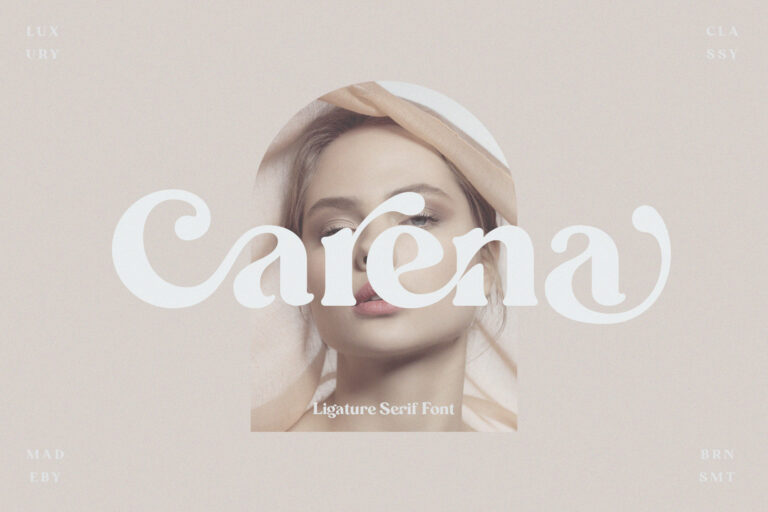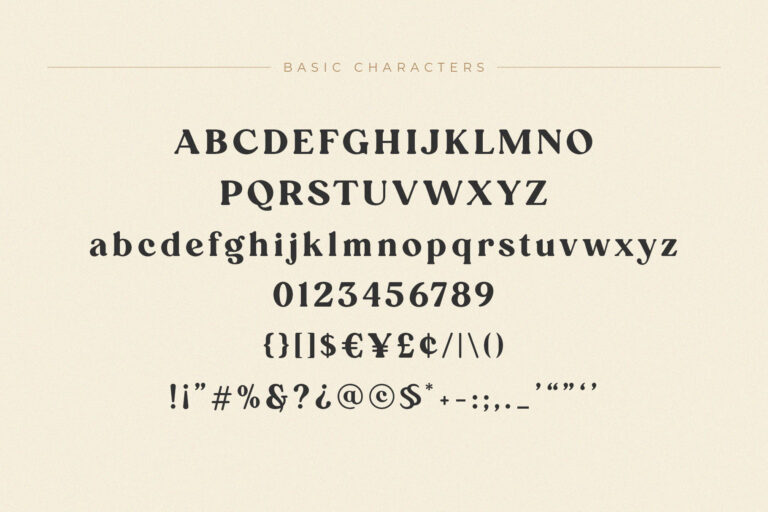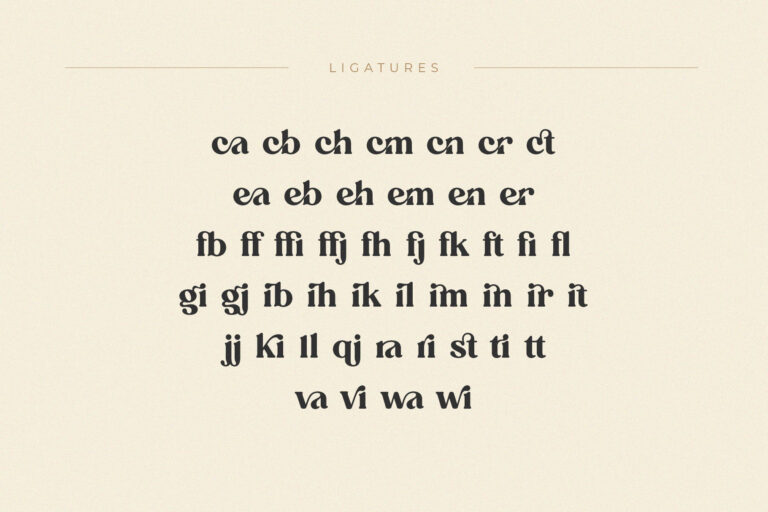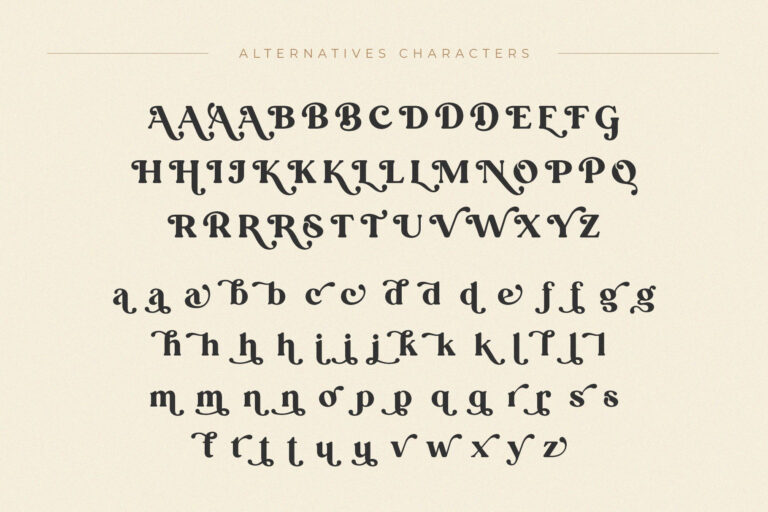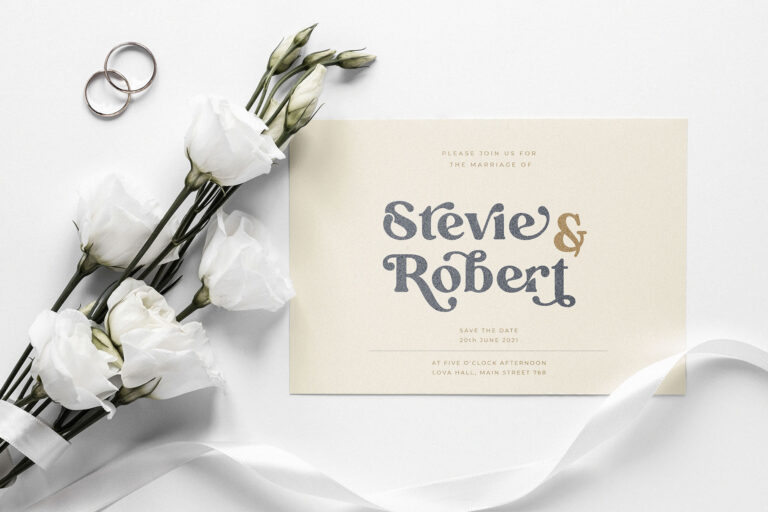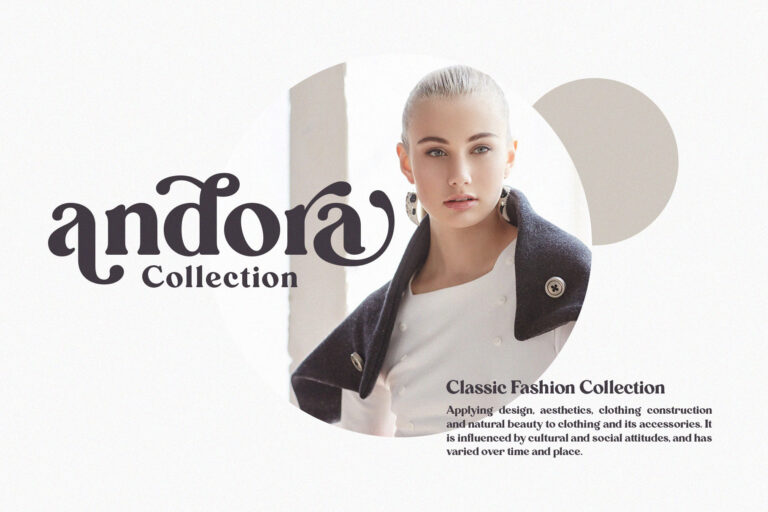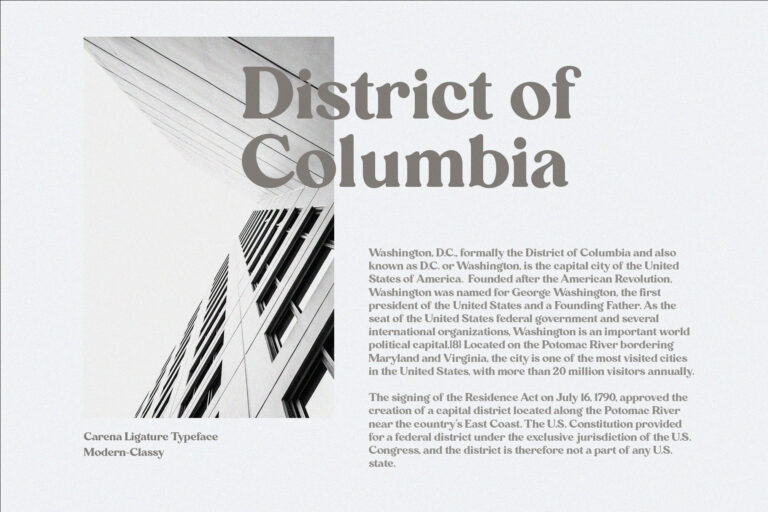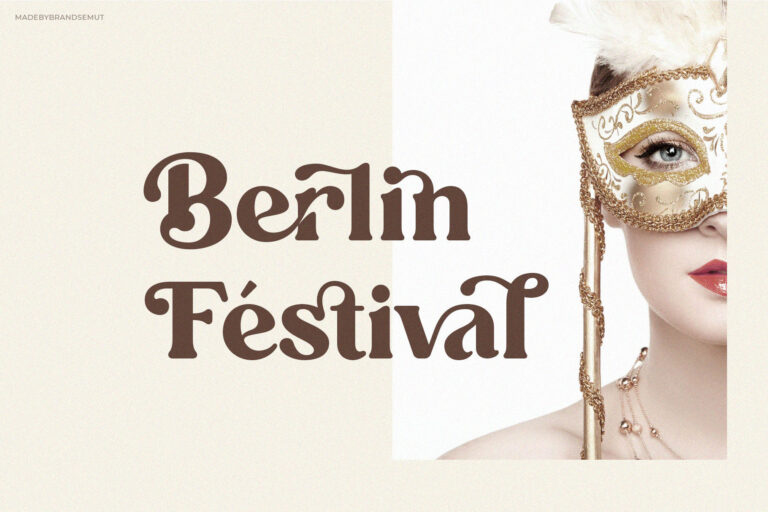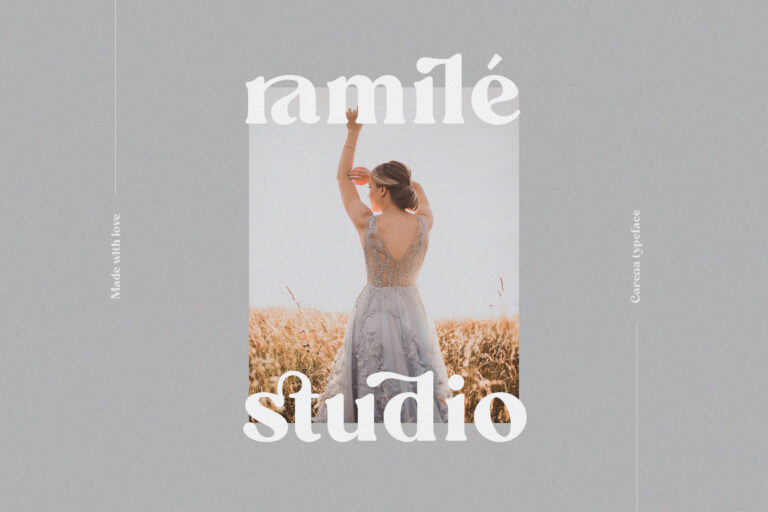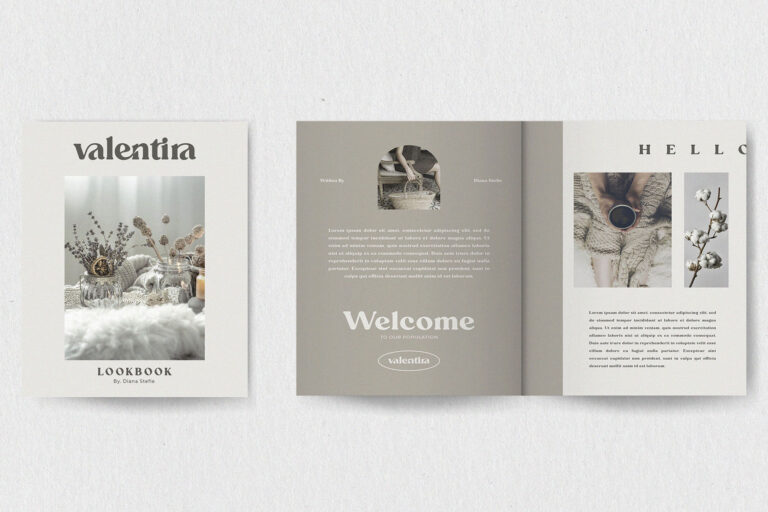
- Carena – Ligature Serif Font
Introducing the new Carena Ligature Serif!!! Carena is a elegant and classy serif typeface – This font is both modern and nostalgic and works great for logos, magazine, social media. Already matched up and ready to be used together for your next design! For those of you who are needing a touch of elegant, stylish, classy, chic and modernity for your designs, this font was created for you!